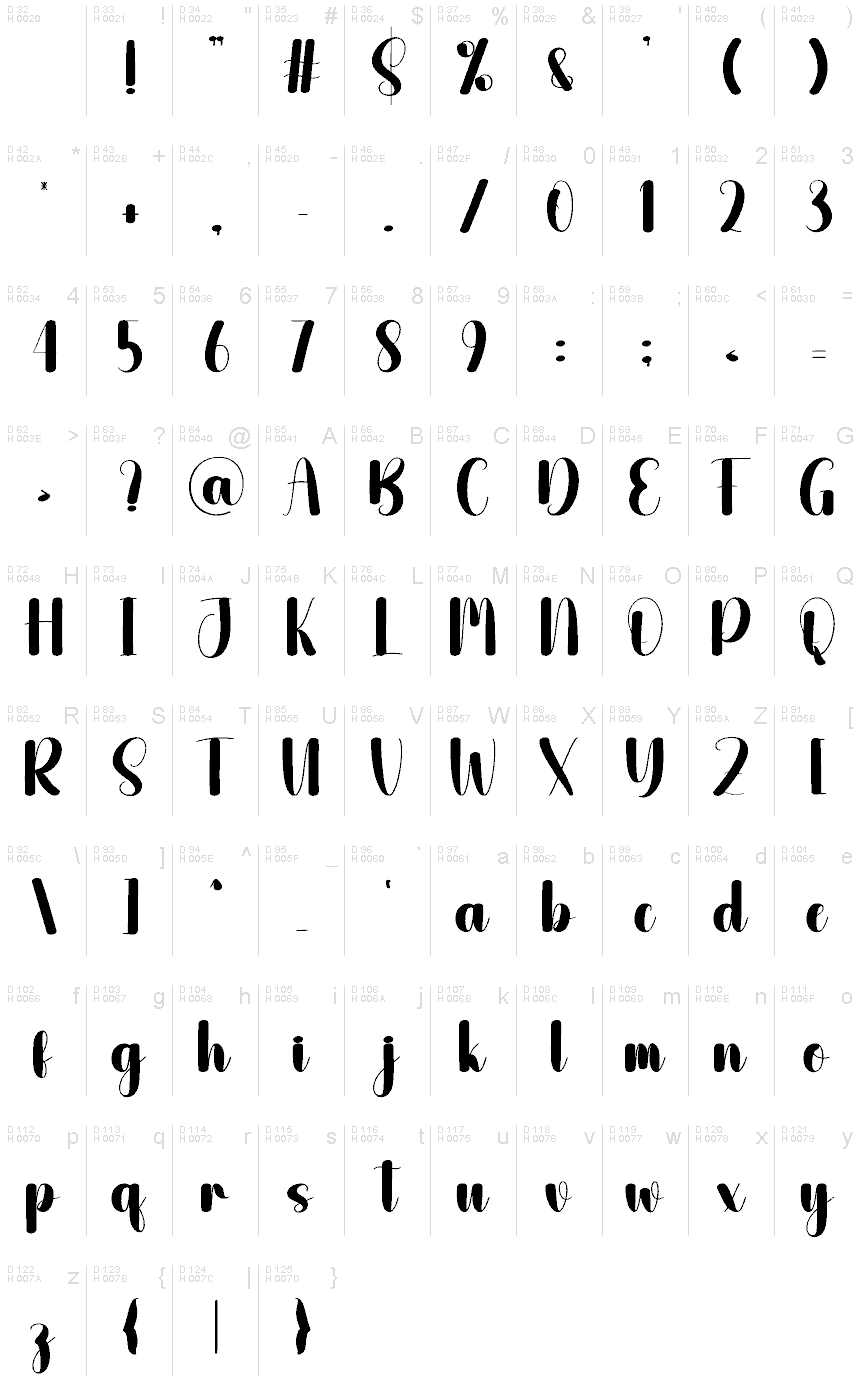
Stannary
Stannary font is a bold brush typeface designed by Andi Moz. This modern script font embodies elegance and expressiveness within its smoothly flowing characters. Its decorative flair is bold yet polished, allowing it to add visually detailed elements that enhance the reader’s experience of any text.